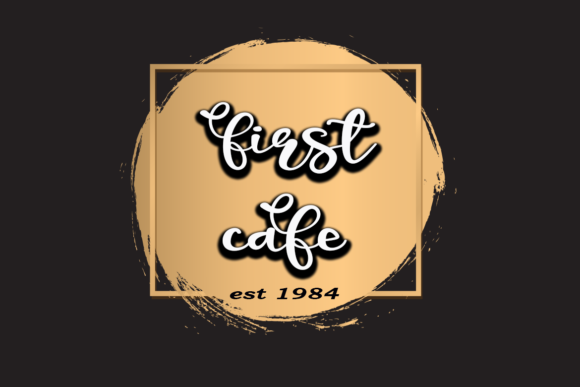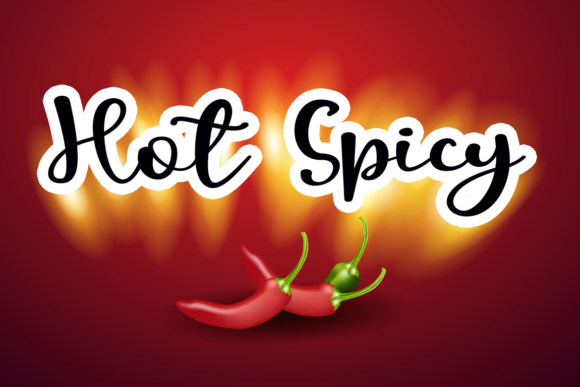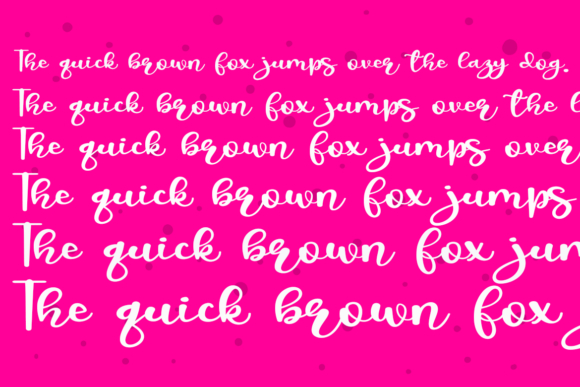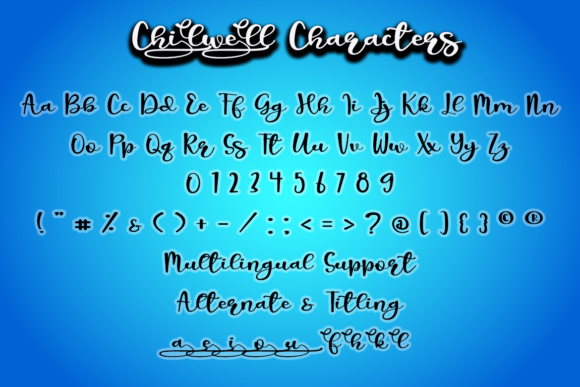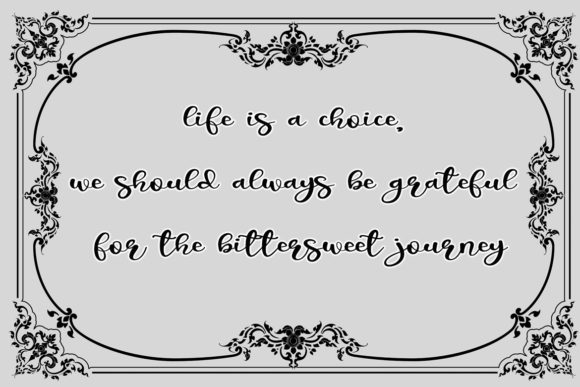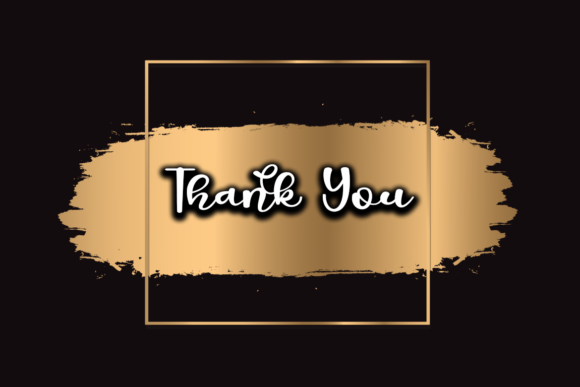
Introduction to Chilwell Font
Chilwell is a very distinct, refined and timeless handwriting font.
It looks amazing on wedding invitations, thank you cards, quotes, greeting cards, logos, business cards and any other design that needs a handwritten touch .